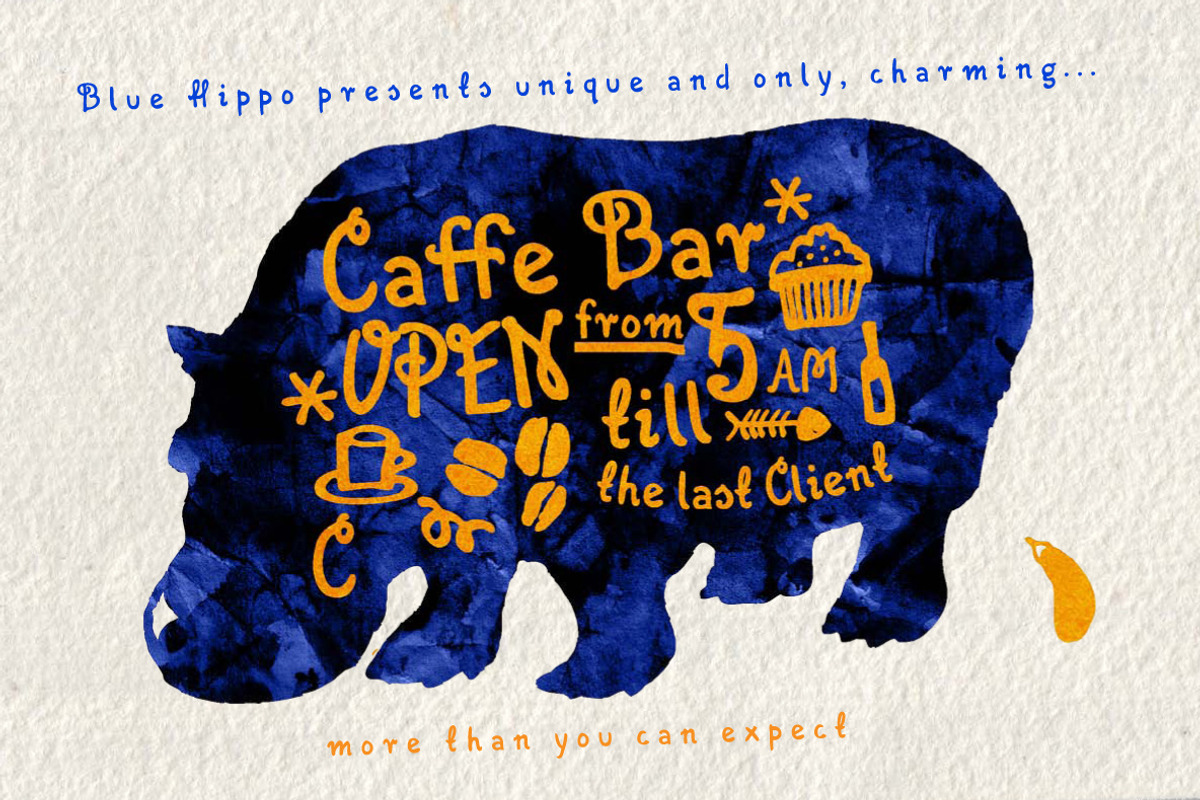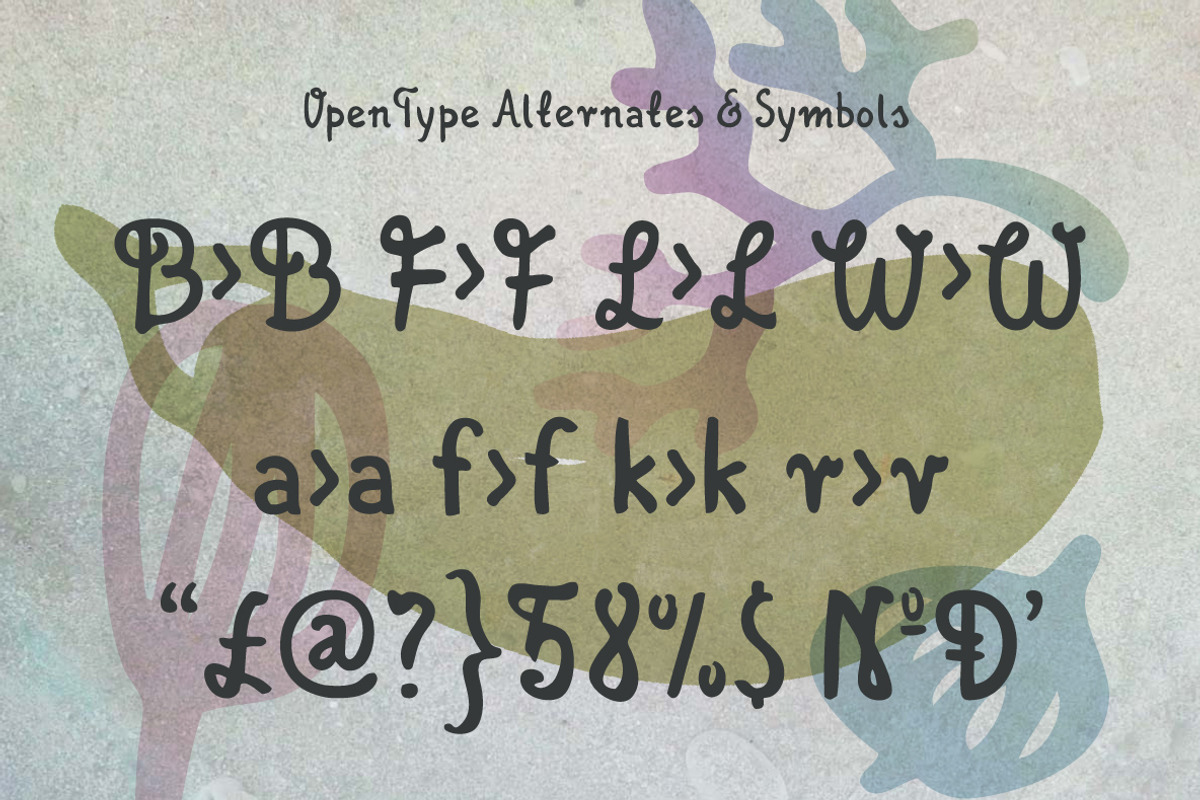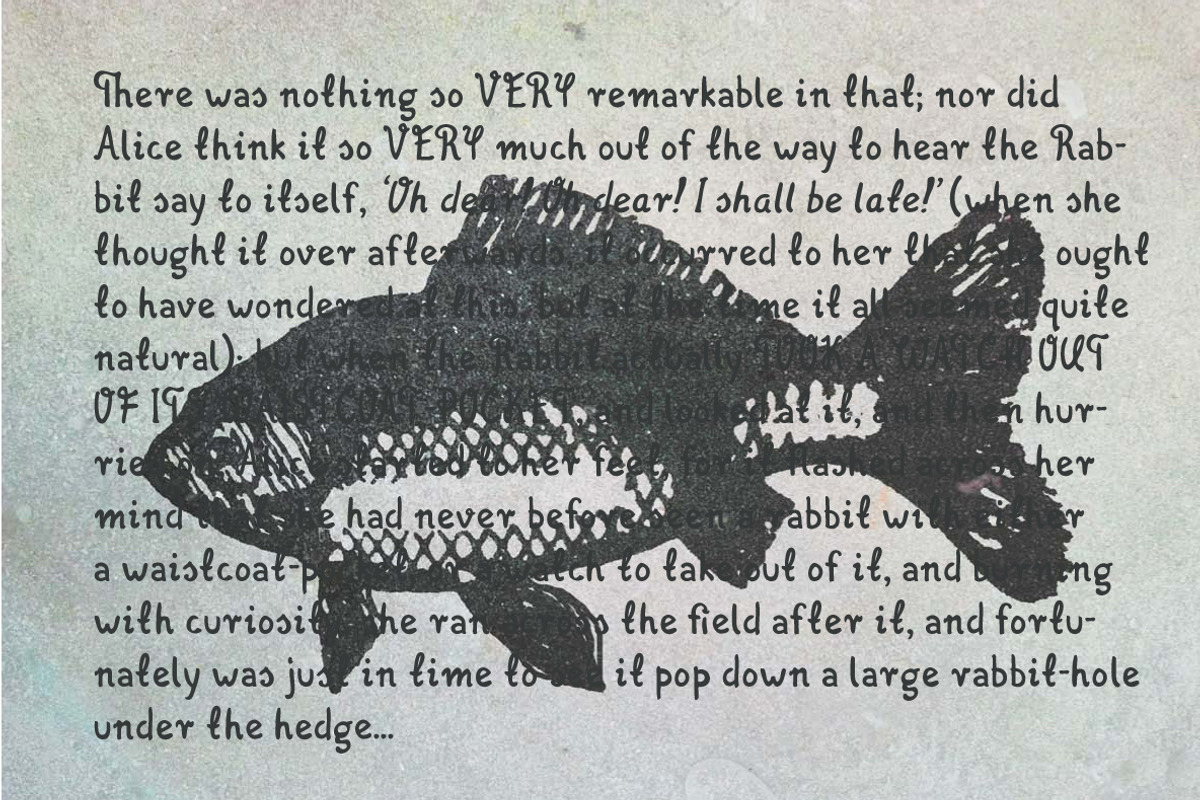
DeBouffet Font Family
DeBouffet Font Family by Magdalena Boffito is a font selected for branding, posters, packaging, typography.
- DeBouffet is a decorative, handmade font, it offers 2 alternates for each letter and number.
Why DeBouffet Font Family is worth a look
DeBouffet Font Family by Magdalena Boffito fits naturally into Branding, posters, packaging, typography.